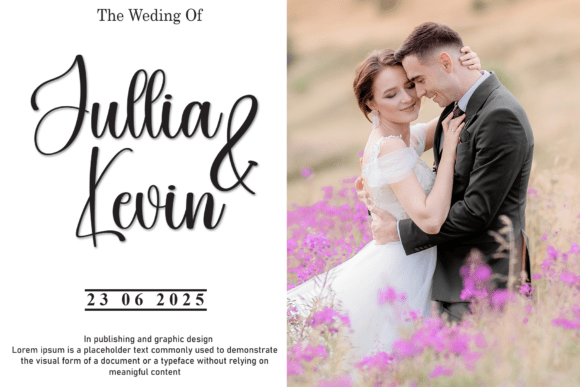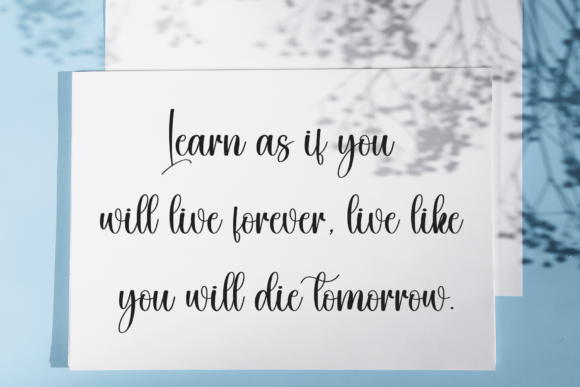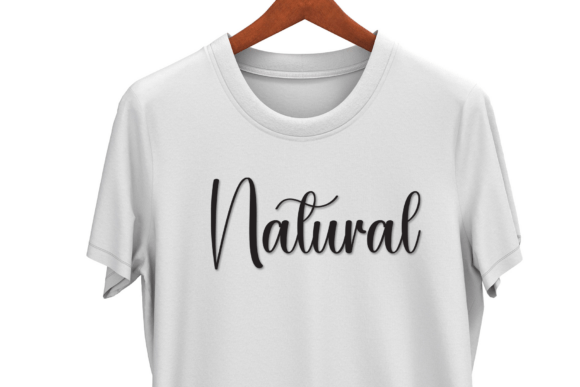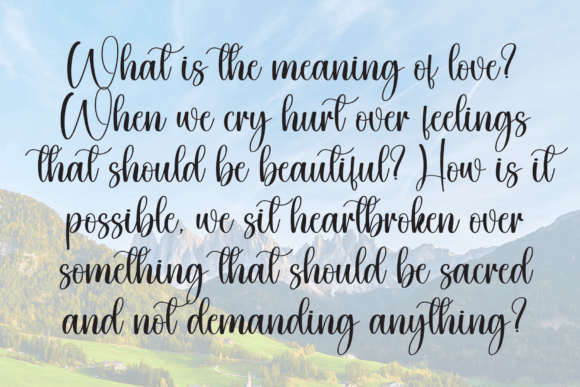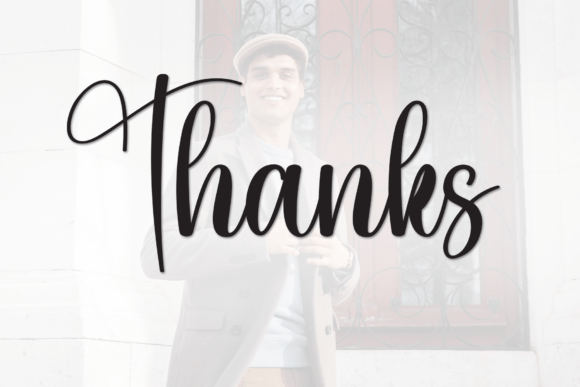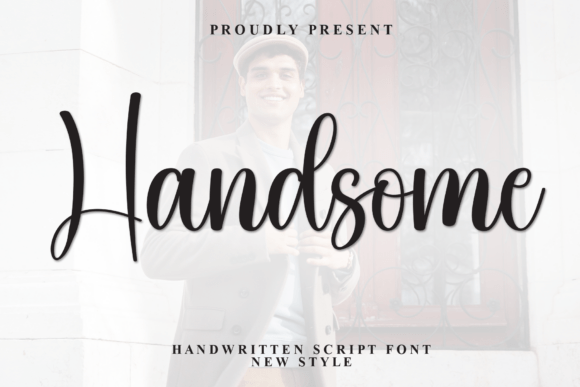
Introducing Handsome Font: Elevate Your Designs with Timeless Elegance
Are you a designer or crafter looking for the perfect font to add a touch of sophistication and elegance to your projects? Look no further than Handsome Font, a lovely and timeless handwritten font that is sure to make your designs come alive. With its unique and beautiful touch, Handsome Font is the ideal choice for creating eye-catching logos, branding, and quotes that will leave a lasting impression.
Handwritten fonts have a way of adding a personal touch to any design. They evoke a sense of warmth, elegance, and sophistication, making them perfect for a wide range of applications, from logos and branding to invitations and quotes. Handsome Font is no exception, with its delicate and refined lettering that exudes a sense of timelessness and class.
What Makes Handsome Font Stand Out
So, what sets Handsome Font apart from other fonts? For starters, every letter has a unique and beautiful touch that adds to the overall aesthetic of the font. The lines are smooth and flowing, with a subtle variation in thickness that gives the font a sense of depth and dimension. Whether you’re using it for a logo, a headline, or a quote, Handsome Font is sure to add a touch of elegance and sophistication to your design.
Handsome Font is a versatile font that is perfect for designers and crafters of all levels. Whether you’re creating a logo for a client, designing a brand identity, or crafting a beautiful quote, Handsome Font is the ideal choice. Its timeless elegance and sophistication make it suitable for a wide range of applications, from formal events to everyday designs.
Key Features of Handsome Font
• Timeless elegance: Handsome Font has a classic, timeless quality that makes it perfect for designs that need to stand the test of time.
• Unique lettering: Every letter has a unique and beautiful touch that adds to the overall aesthetic of the font.
• Smooth lines: The lines are smooth and flowing, with a subtle variation in thickness that gives the font a sense of depth and dimension.
• Versatile: Handsome Font is perfect for a wide range of applications, from logos and branding to invitations and quotes.
Tips for Using Handsome Font
Here are a few tips for getting the most out of Handsome Font:
• Use it sparingly: Handsome Font is a statement font, so use it sparingly to add emphasis and elegance to your design.
• Experiment with colors: Handsome Font looks great in a range of colors, from bold and bright to soft and pastel.
• Pair it with other fonts: Handsome Font pairs well with a range of other fonts, from sans-serif to serif.